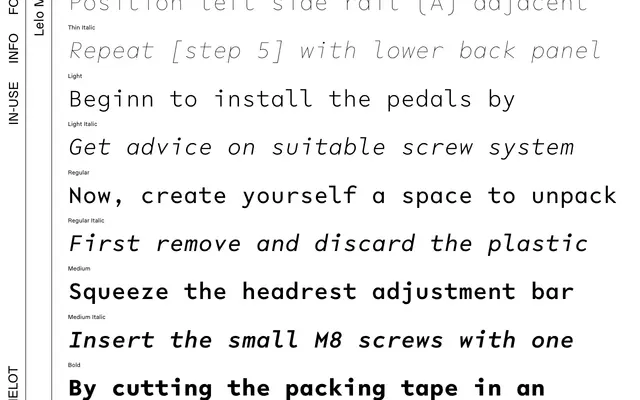
Lelo Mono
Camelot · Katharina Köhler
A geometric monospaced sans with early grotesque roots, offering six weights with italics and alternate glyph options via OpenType.
Part of the wider Lelo family by Katharina Köhler, this is a fixed-width geometric sans that draws on early 20th-century grotesque forms. Pointy stroke terminals on diagonal letters like V, W, N and M contrast with the otherwise round geometric construction, and the design traces its origins to an abandoned quattro-spaced typewriter concept. Six weights from Thin to Black, each with a matching italic, are supported by a rich OpenType feature set including single and double-storey alternates and several stylistic sets.
A fixed-width typeface with geometric sans characteristics drawn from early 20th-century grotesque sources, making it a monospaced geometric sans. The page explicitly categorises it as part of a geometric sans serif family with a fixed-width constraint.